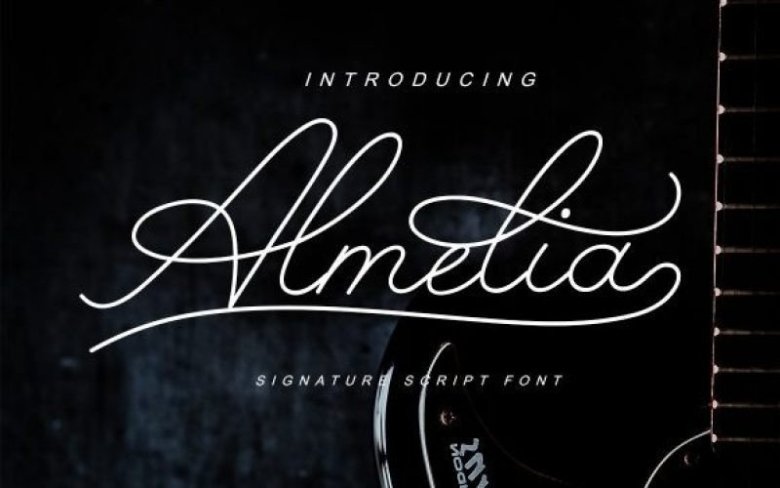
Almelia Font
almelia Font
Almelia Handwritten Font is a pretty monoline signature font that will look gorgeous on all your designs, wedding stationery, love stories, branding materials, monoline logos, pretty teenage stickers, business and wedding cards, calligraphy Insta quotes, elegant fashion sketches, calligraphy love monograms and much more.